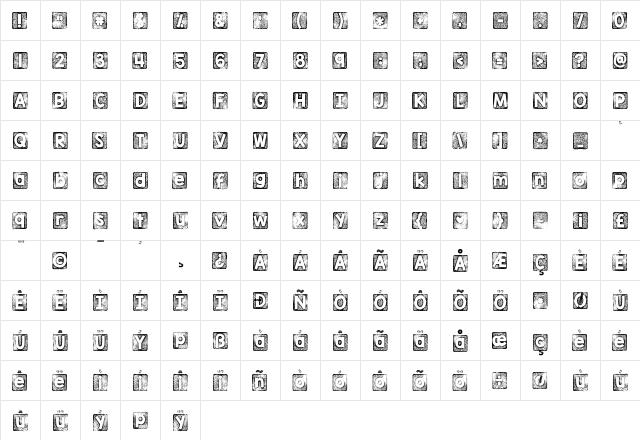
KG Thank You Stamp Regular
Design Context for KG Thank You Stamp Typeface
KG Thank You Stamp has the rough pragmatism of spray-painted stencil signage, adding a raw, street-level authenticity to designs.
Ideal for industrial branding, streetwear, military-adjacent aesthetics, and urban signage projects.
Pro Tip: Pair KG Thank You Stamp with raw, utilitarian design elements — exposed concrete textures, flat colour, and minimal ornamentation suit it well.